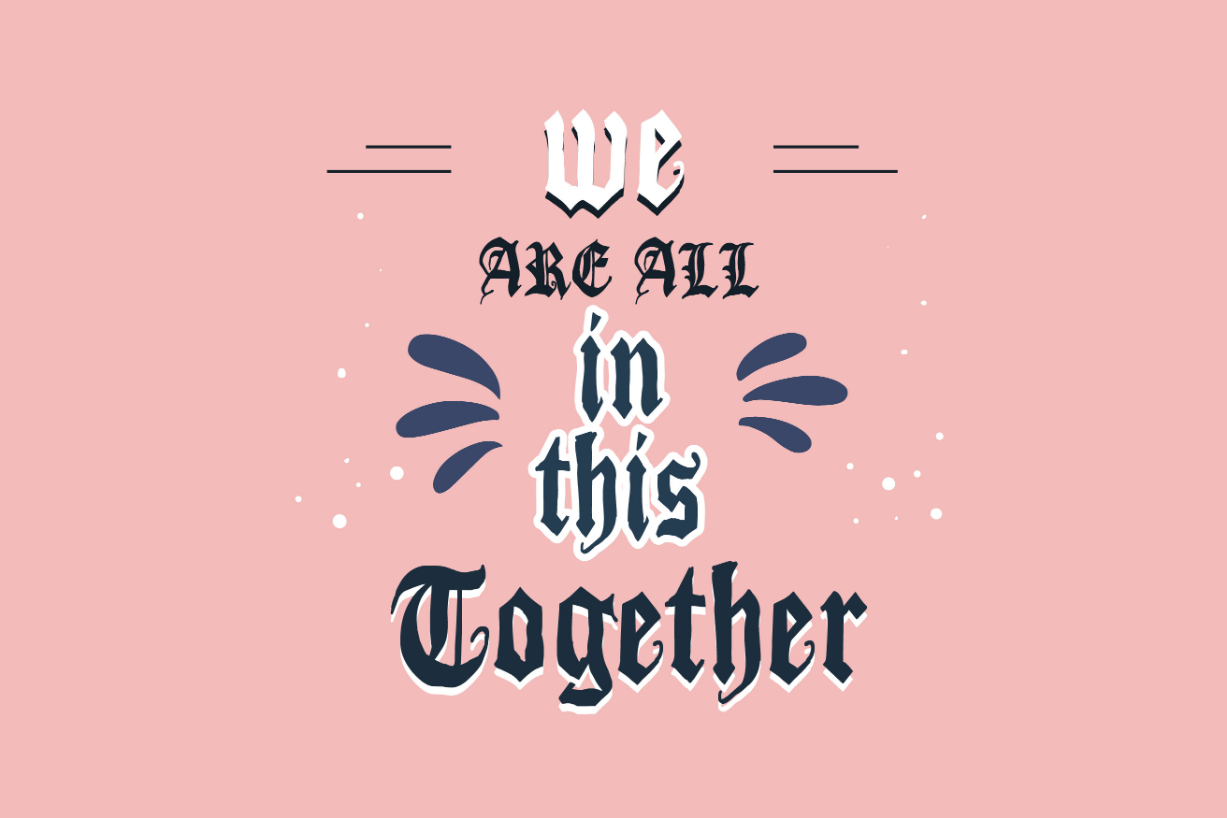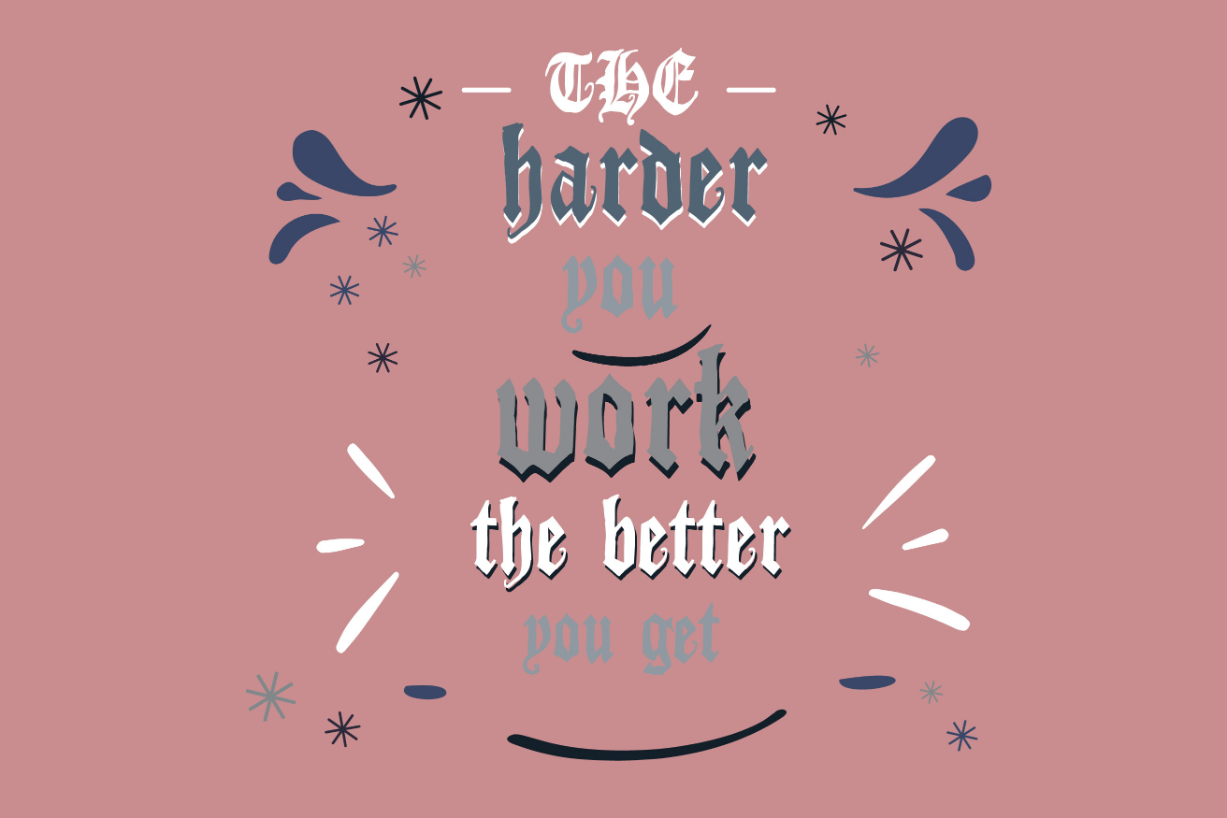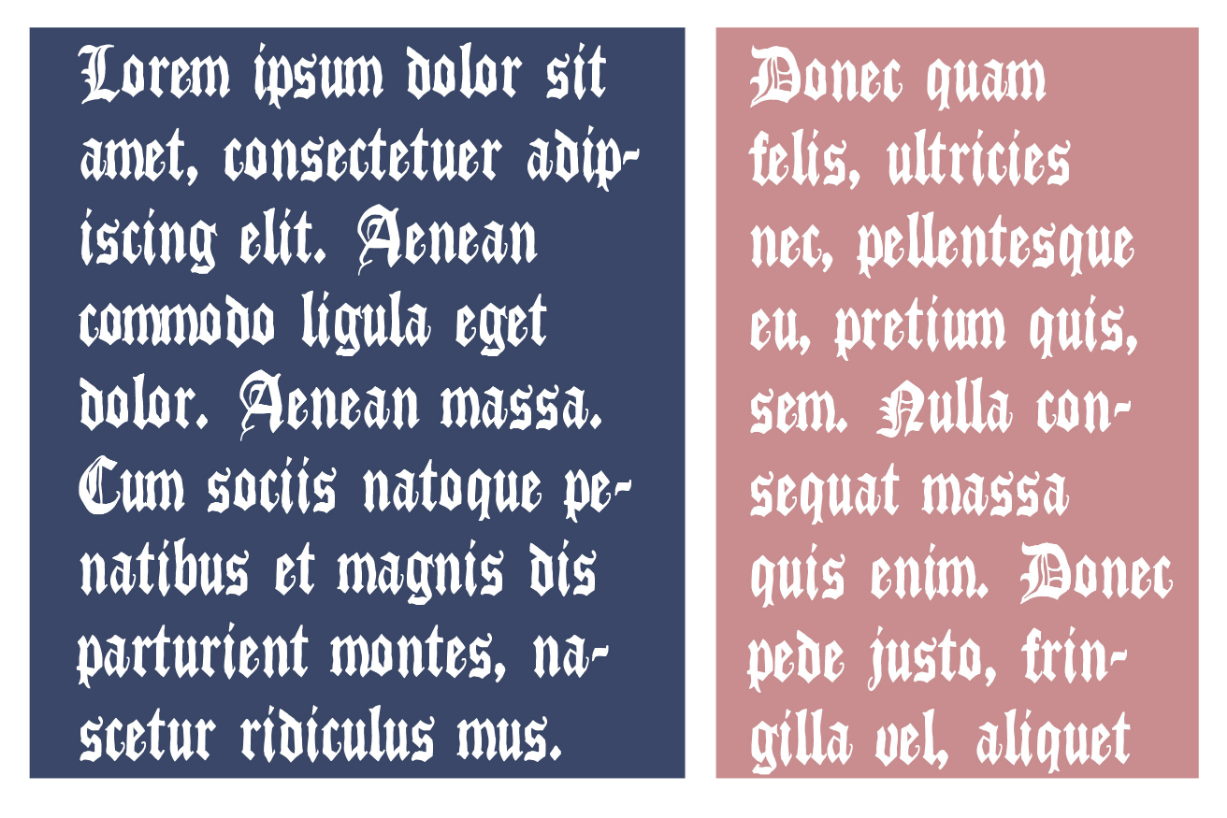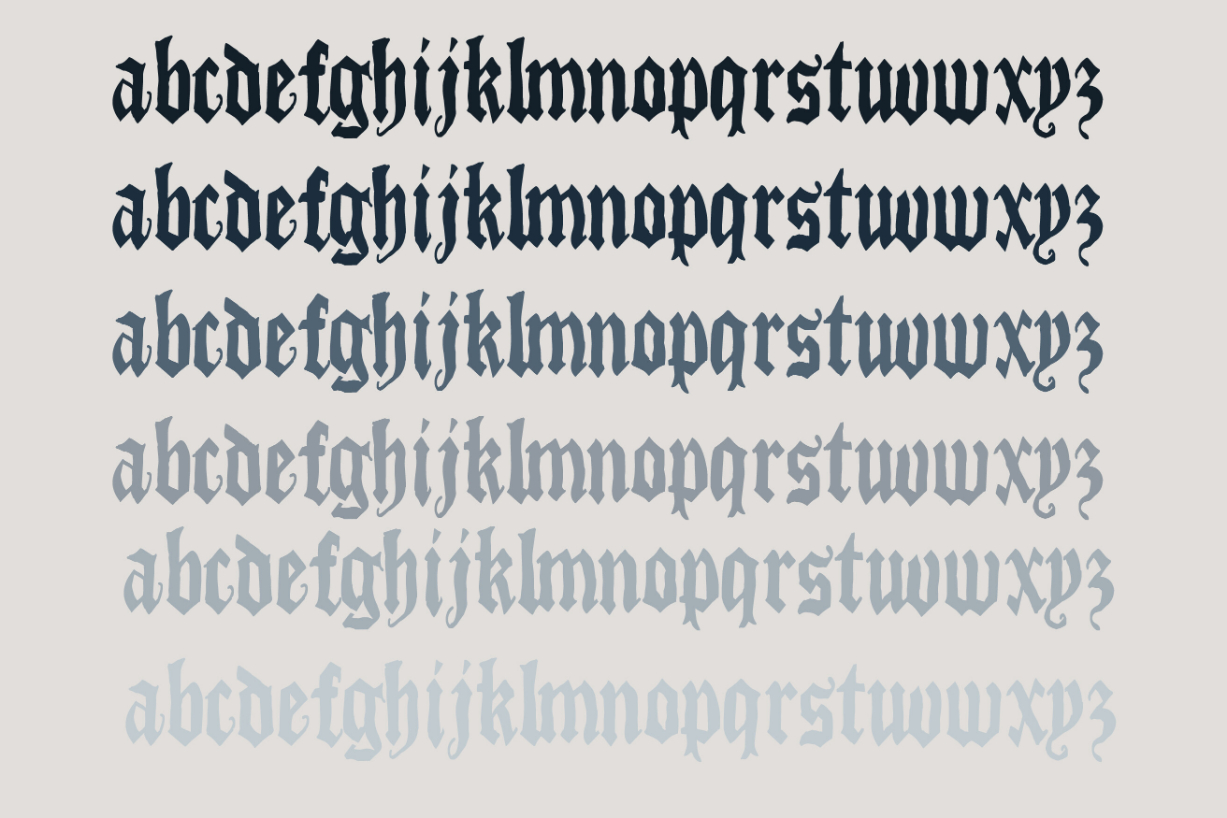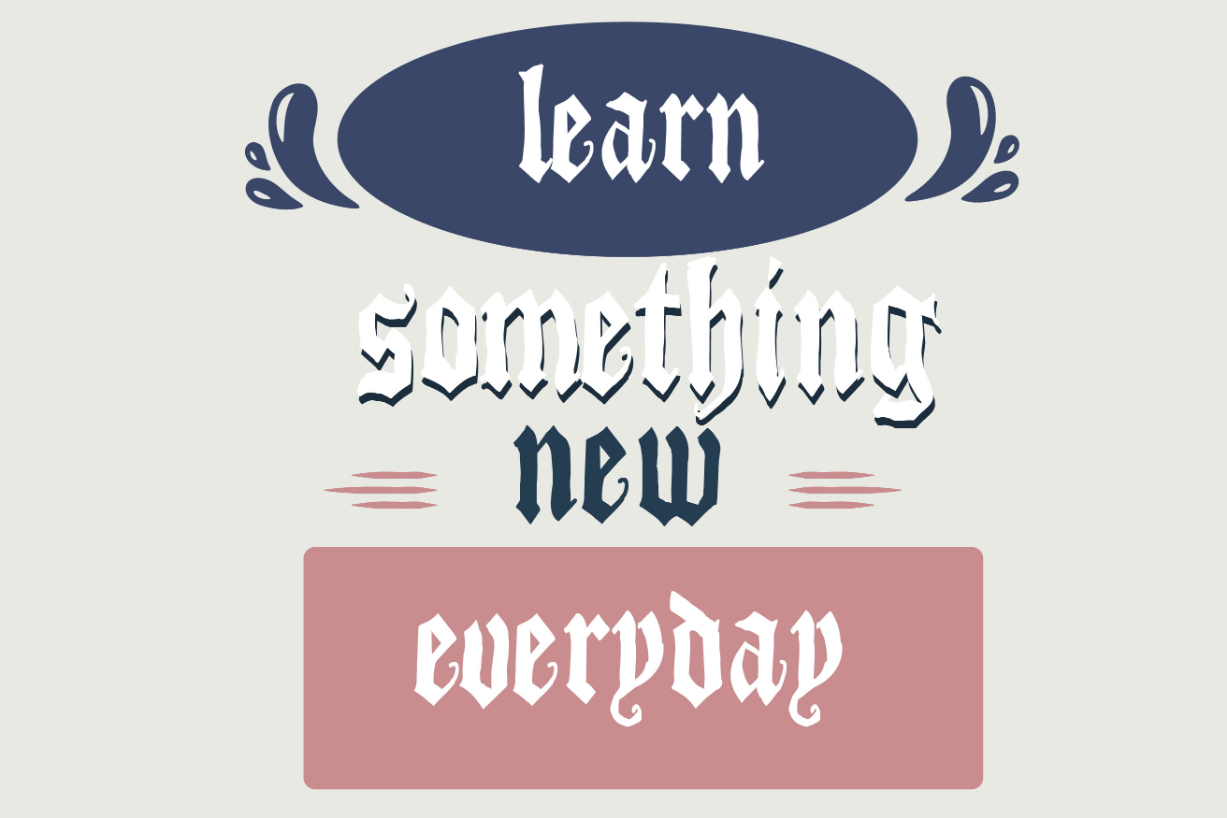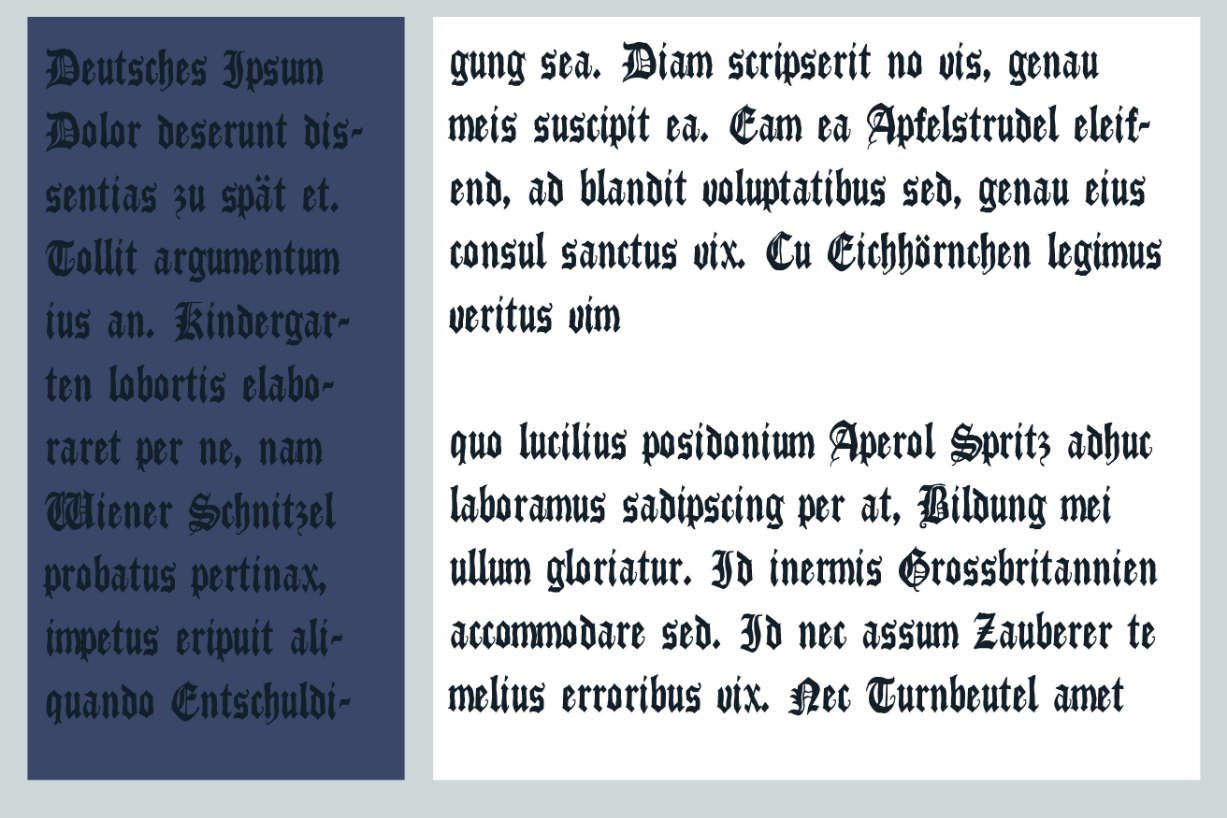
Vampy Love Font
About Vampy Love Font
This hand-crafted blackletter font is a unique, crafty, old-school calligraphy font with a bit of whimsy. No matter the topic, this font will be an incredible asset to your fonts’ library, as it has the potential to elevate any creation.